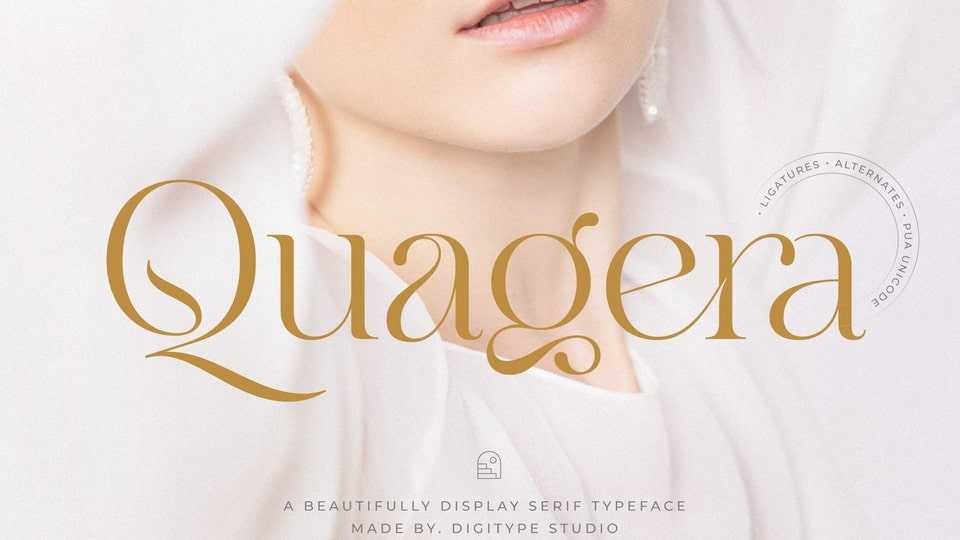
Download Quagera font, a beautiful serif typeface, a blend of modern and old styles. Quagera font is very suitable to be applied to various formal design, fashion, logos, invitations, greeting/wedding cards, labels, magazines, books, etc.
Designer: Digitype Studio